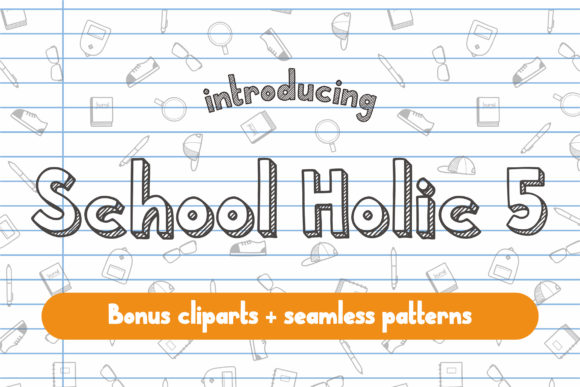
Immerse yourself in the whimsical world of education with School Holic 5, an extraordinary display font that captures the joyful spirit of learning. This font is your perfect companion for any school-themed project, whether it's designing invitations, creating lesson plans, or crafting captivating posters.
Step into a realm where imagination and creativity run wild. School Holic 5's charming and playful characters will add a touch of delight to your projects, sparking curiosity and inspiring minds to explore new horizons. Its organic twist dances across your designs, evoking a sense of wonder and discovery that is sure to captivate your audience.
With School Holic 5, you'll discover a font that transcends the boundaries of the ordinary. Its unique personality shines through in every letter, number, and symbol, igniting a passion for learning and a desire to express oneself creatively. Whether you're a teacher looking to create engaging materials, a student eager to make a statement, or simply someone who loves to embrace the joy of education, School Holic 5 is your font of choice.
School Holic 5 isn't just a font; it's an experience. It's an invitation to unlock the boundless creativity within you and let your imagination soar. Its playful strokes and vibrant energy will transform your projects into masterpieces, leaving an indelible mark on the hearts and minds of all who encounter them.